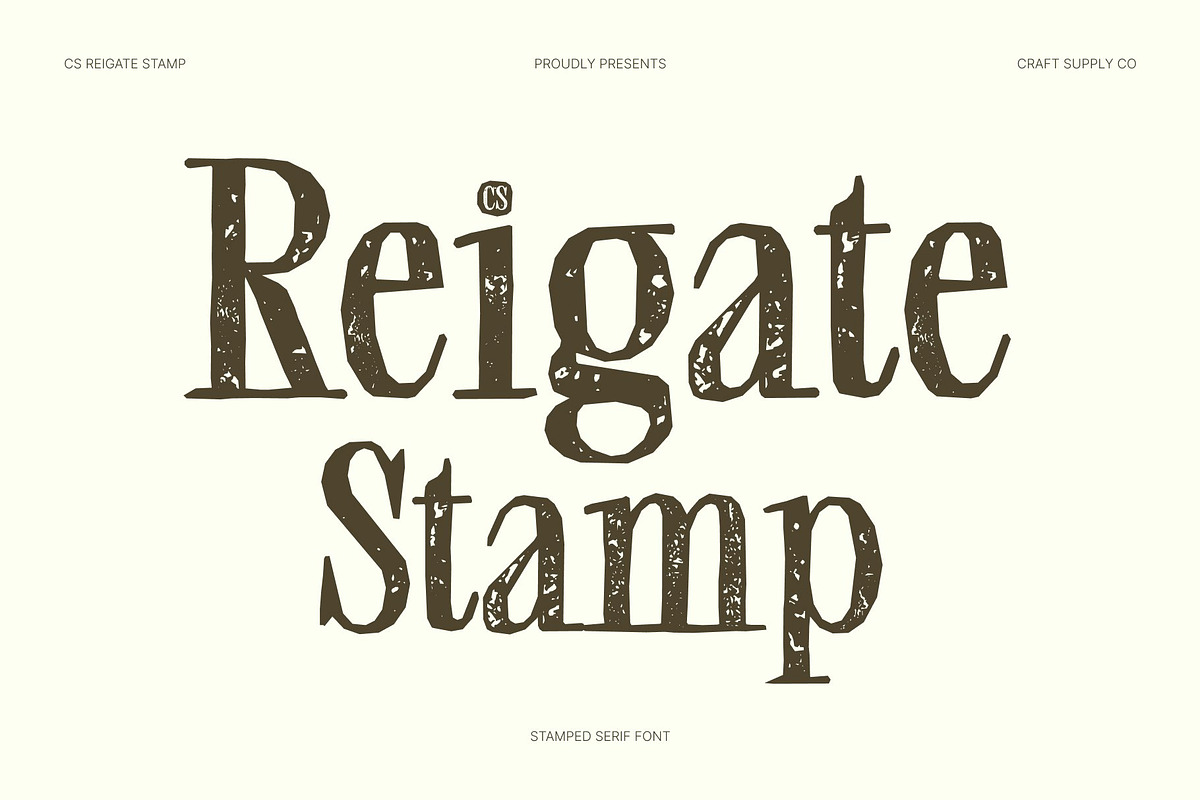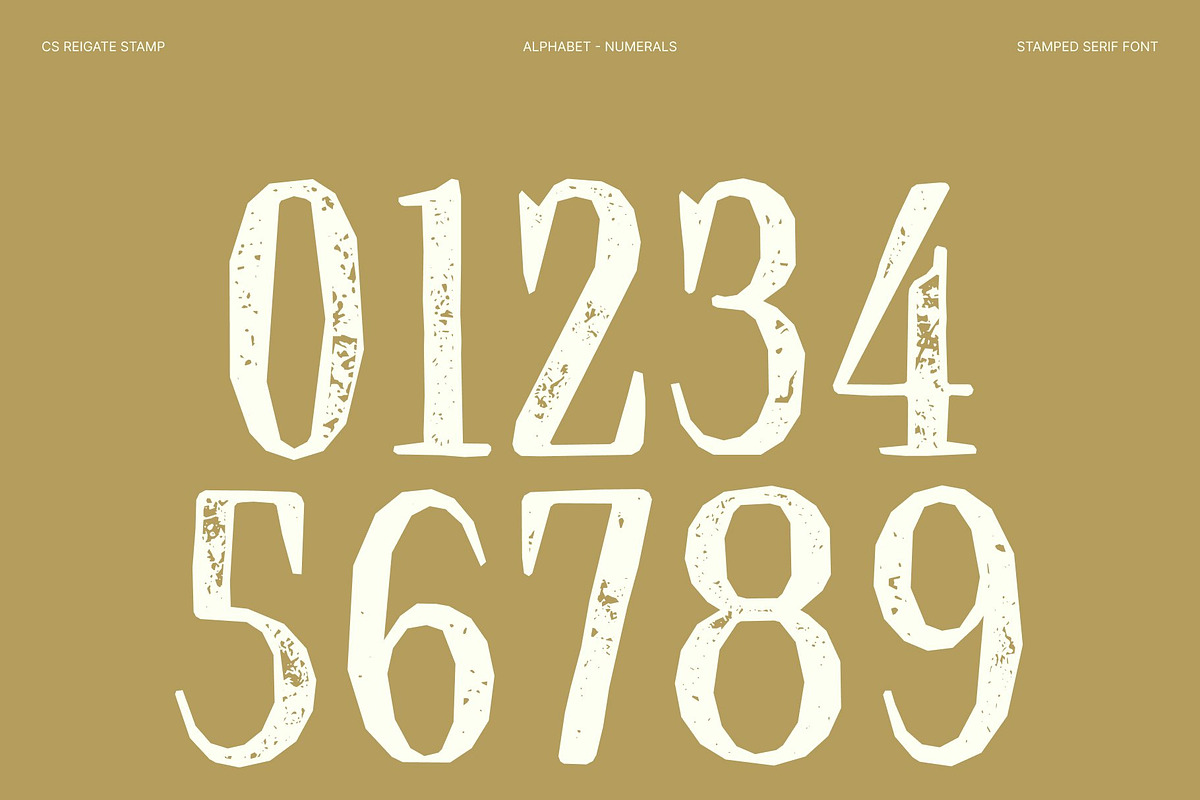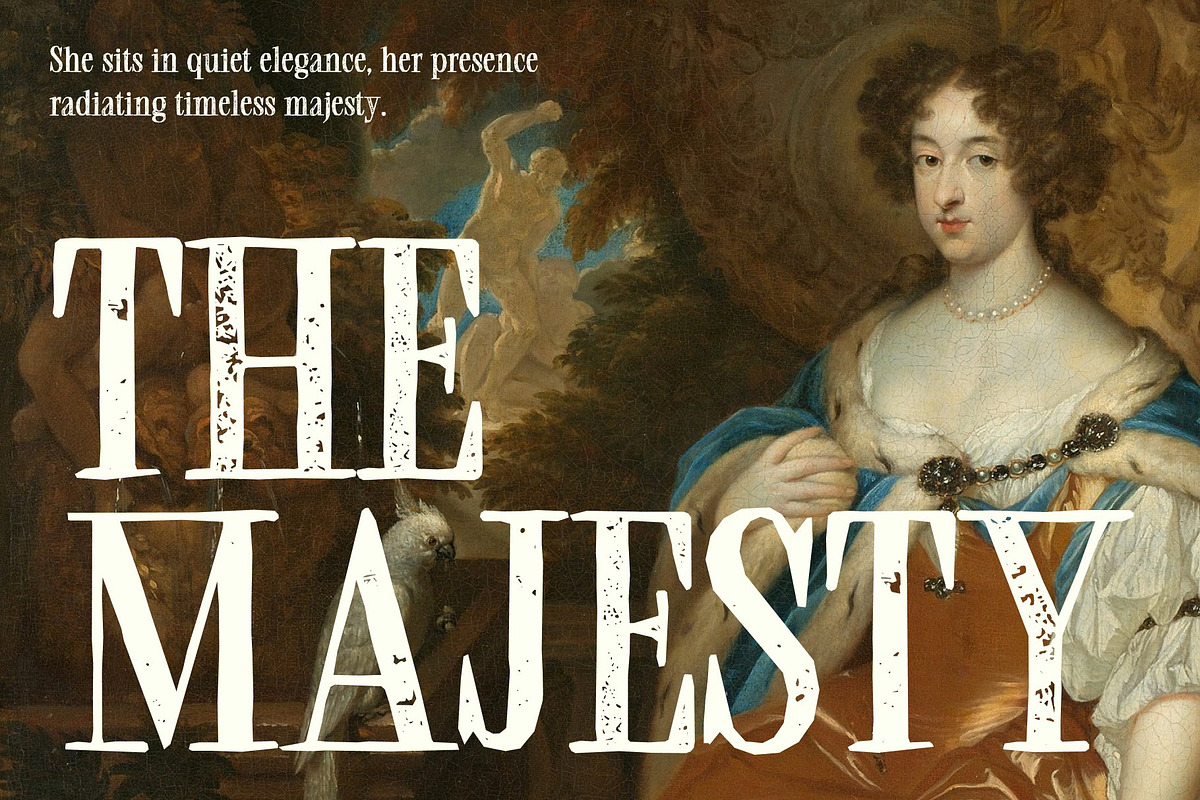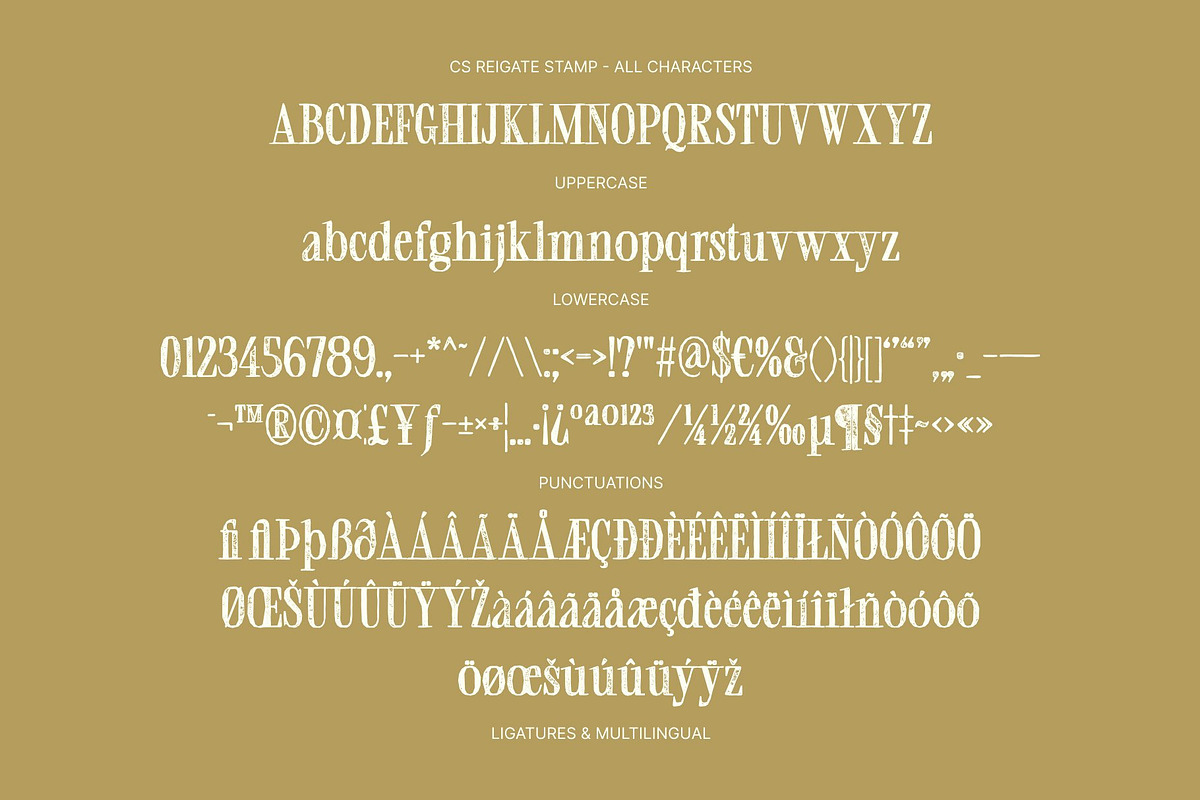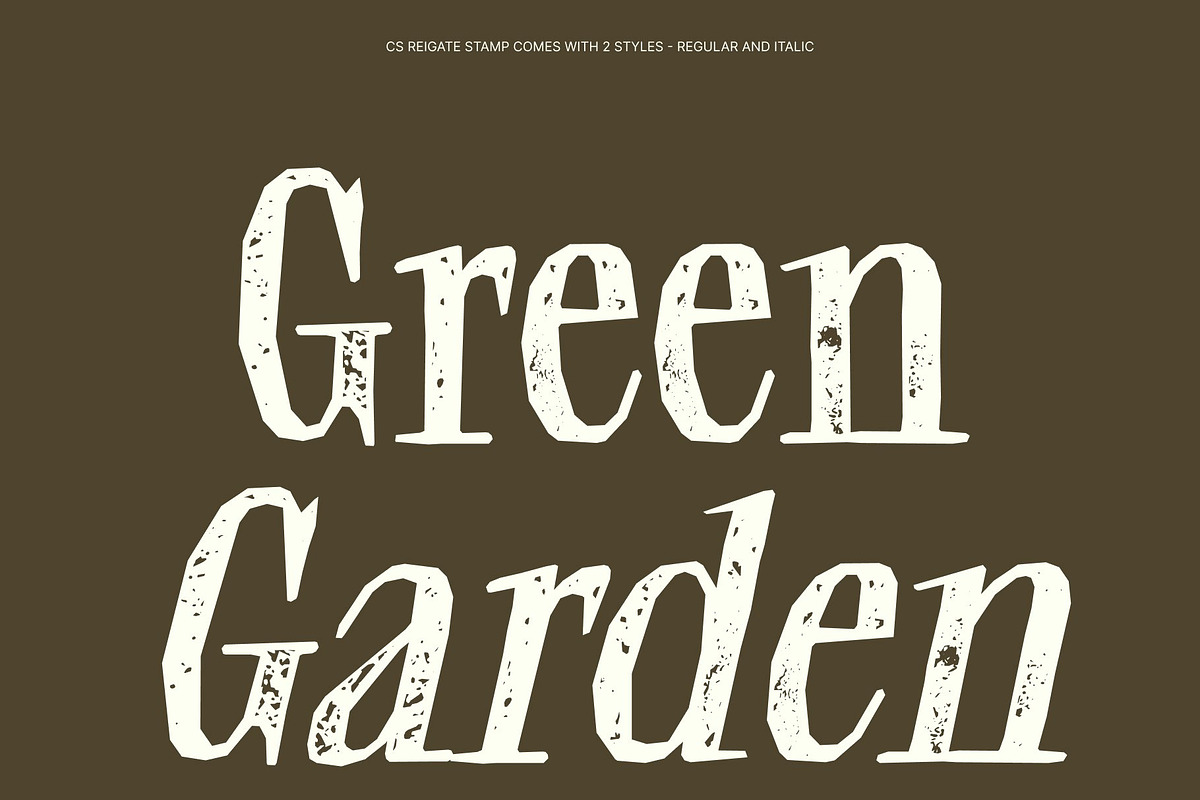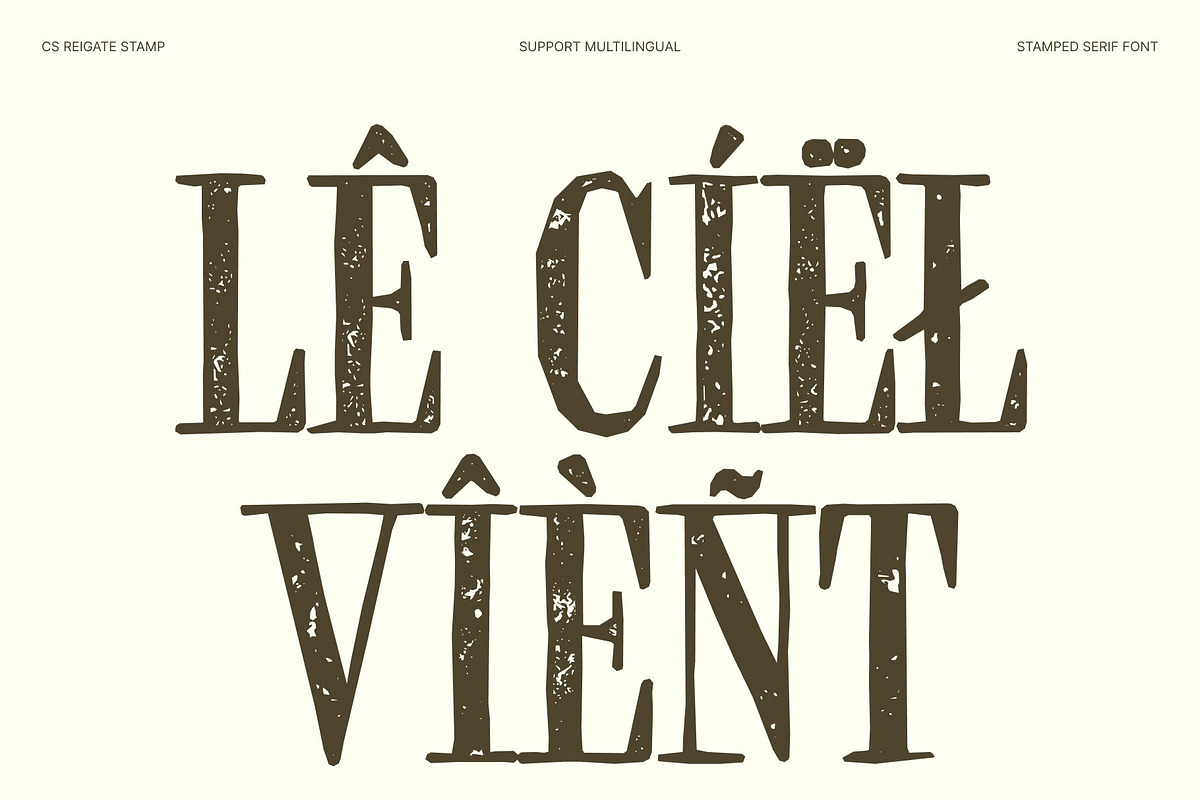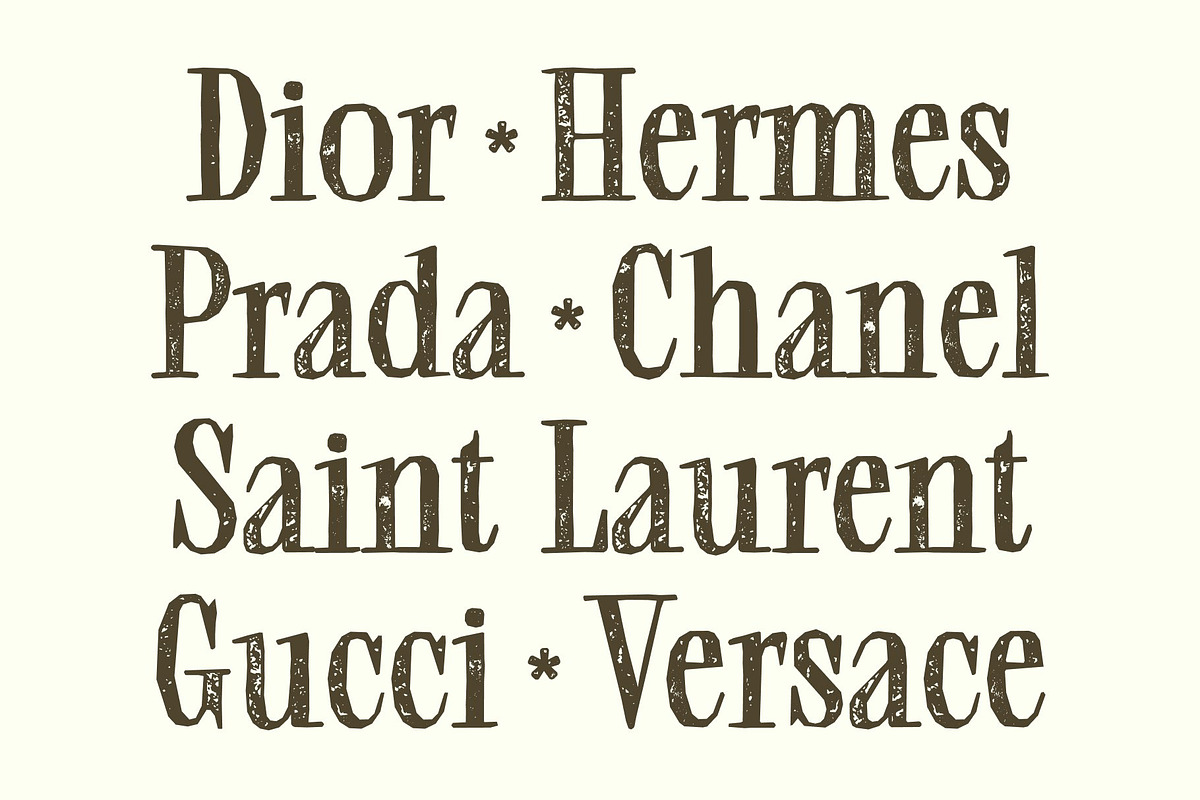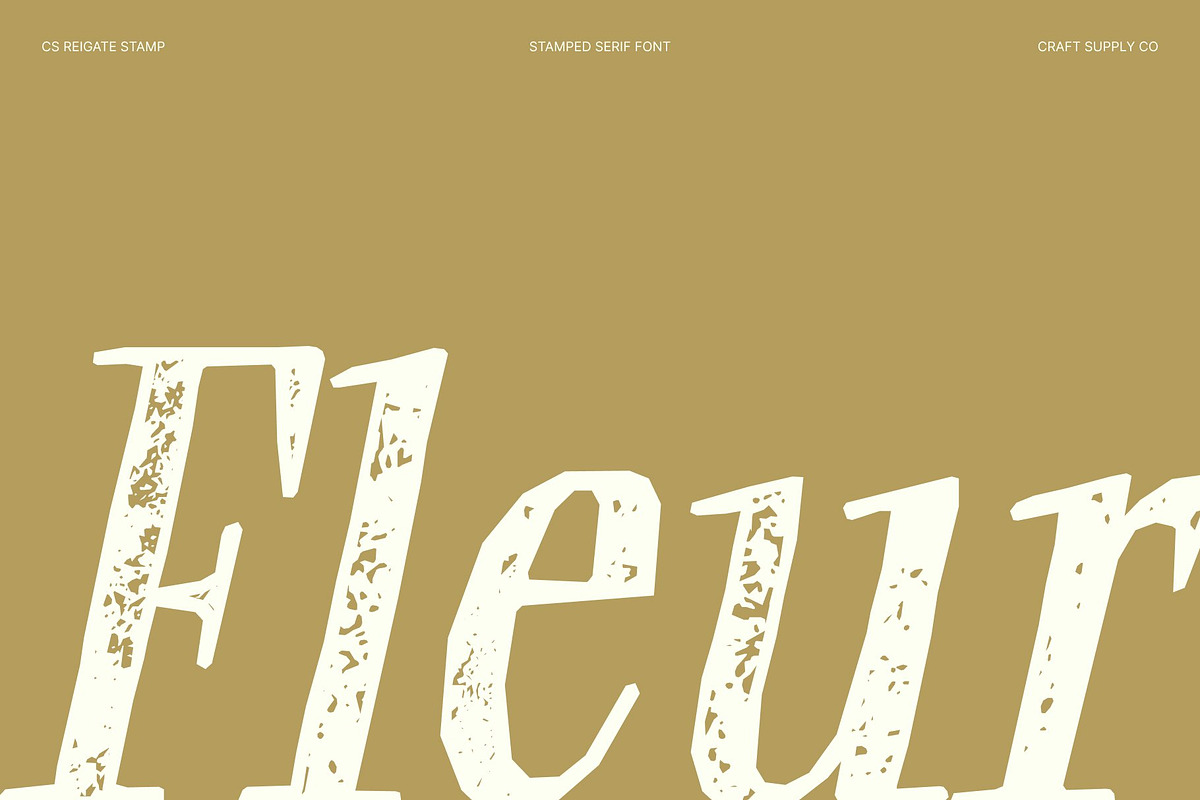
CS Reigate Stamp
CS Reigate Stamp – Classic Modern Serif Font: Where Didone Elegance Meets Vintage Stamp Texture
Timeless Didone Forms with Refined Sophistication This is a classic modern serif font that embodies sophistication, luxury, and timeless beauty. Inspired by the elegance of Didone typography, it features striking contrast between thick and thin strokes, sharp and delicate serifs, and a polished aesthetic that radiates refinement. Every letter is carefully crafted to create a sense of prestige and visual grace, making it ideal for premium design applications.
Stamp Effect with Authentic Vintage Character This font features rough, uneven textures that add depth, authenticity, and handcrafted appeal to its refined letterforms. This distressed finish evokes the charm of vintage printing techniques, antique publications, and aged paper impressions, enriching the font with nostalgic character while preserving its elegant structure.
Luxury Meets Vintage Artistry This font creates a unique typographic identity that feels both luxurious and timeless. The combination of crisp high-contrast forms and vintage imperfections delivers a harmonious balance between modern refinement and old-world charm, resulting in a look that is both distinctive and memorable.
Perfect for Editorials, Branding, and Fashion Campaigns Perfect choice for editorial layouts, magazine headlines, luxury branding, high-fashion campaigns, premium packaging, invitations, beauty products, and upscale promotional materials. Its textured serif forms make it ideal for logos, titles, visual identities, and creative projects that seek to communicate elegance, prestige, and artistic authenticity.
CS Reigate Stamp Regular
CS Reigate Stamp Italic